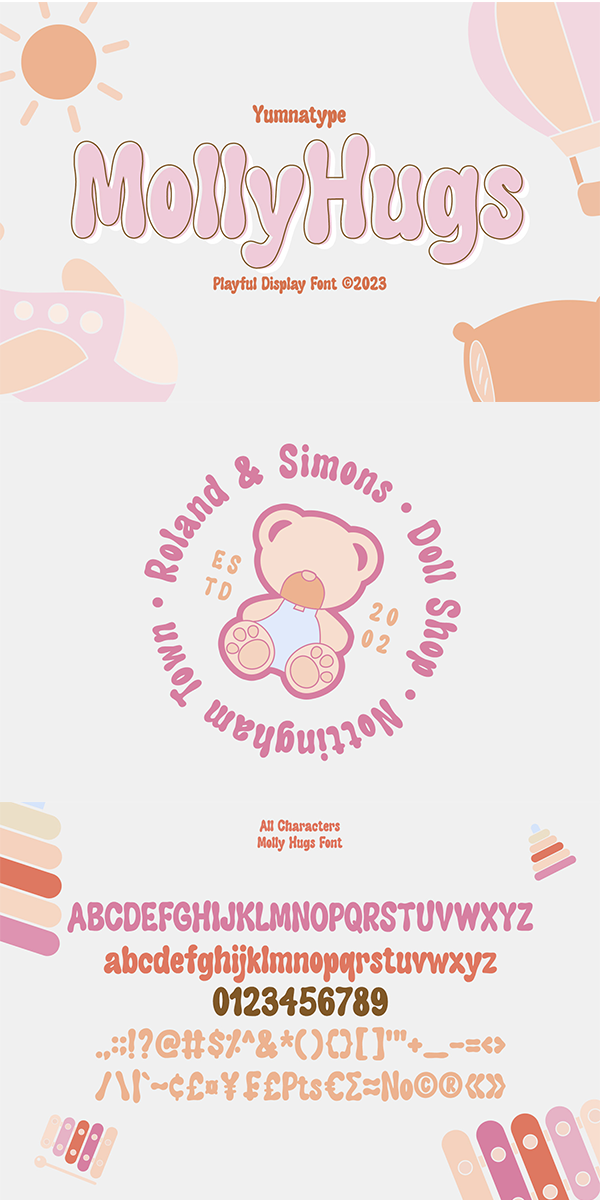
Molly Hugs Font
About Molly Hugs
Molly Hugs is the right solution for you. It is a rounded display font to add warm, fun character touches on every design. Its shapes and geometry are simple and without too many detailed points for a legibility reason. Additionally, Molly Hugs, completed with a clipart as a bonus, is perfectly applied for big text sizes to be legible and you can make use of some available features here.
Molly Hugs fits for various design projects, such as posters, banners, logos, magazine covers, quotes, headings, printed products, invitations, name cards, merchandise, social media, etc. Find out more ways to use this font by taking a look at the font preview.